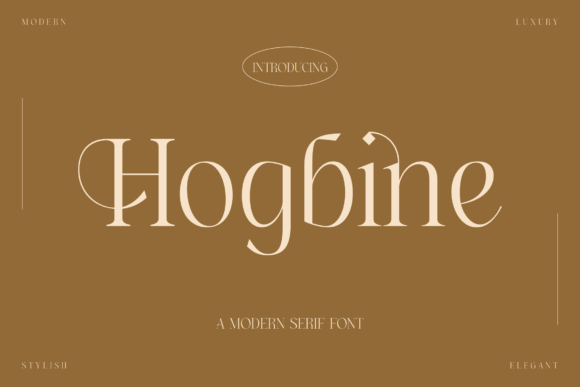
Indulge in the captivating allure of Hogbine, a serif font that weaves a tapestry of elegance and modernity. This masterpiece, carefully crafted by the artisans at Storytype Studio, is not just a font; it's a gateway to a world of boundless creativity.
Picture the perfect logo, where Hogbine's graceful curves intertwine to create an emblem of timeless sophistication. Imagine the cover of a captivating novel, where its flowing lines dance across the page, beckoning readers into an enchanting realm. Or envision the title of a captivating film, etched in Hogbine's bold yet delicate strokes, hinting at a cinematic journey that will linger in your heart.
Hogbine's versatility extends far beyond the confines of traditional print. It's the perfect companion for fashion brands, as its refined lines lend an air of effortless chic to clothing and accessories. Embrace its elegance in magazines, where Hogbine's gentle curves guide readers through captivating stories. Transform quotes into works of art, with Hogbine's ability to capture the essence of words and emotions.
But it's in the realm of lettering that Hogbine truly shines. Its flowing lines and subtle flourishes make it the ideal choice for vinyl lettering, where every letter becomes a masterpiece. Adorn your walls, windows, or any surface with the timeless beauty of Hogbine, creating a symphony of expression that will captivate all who behold it.